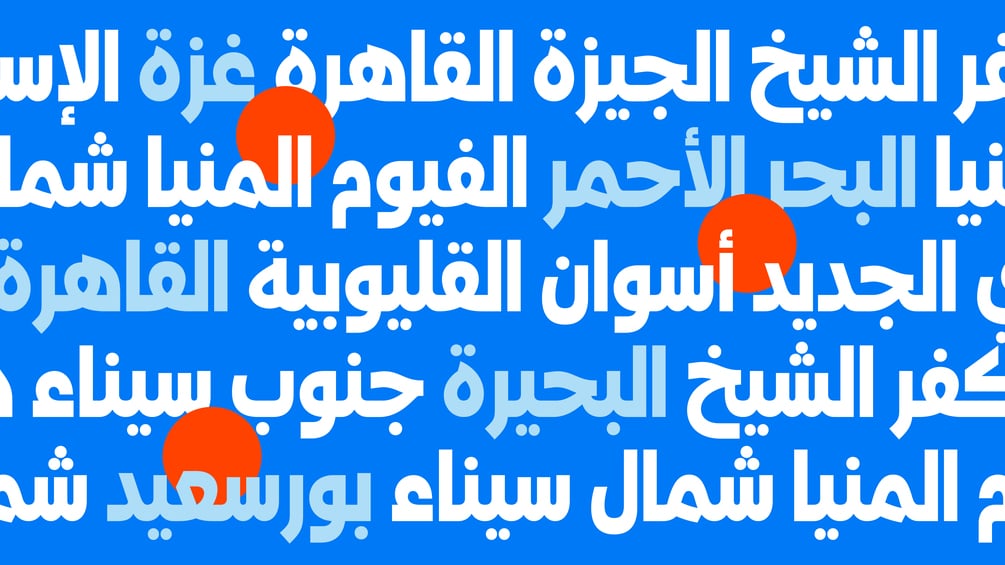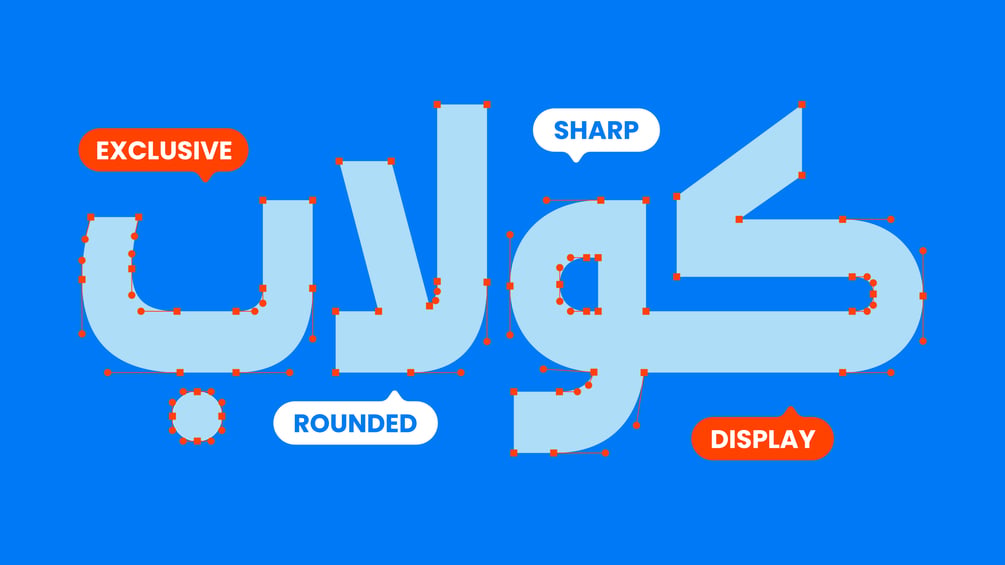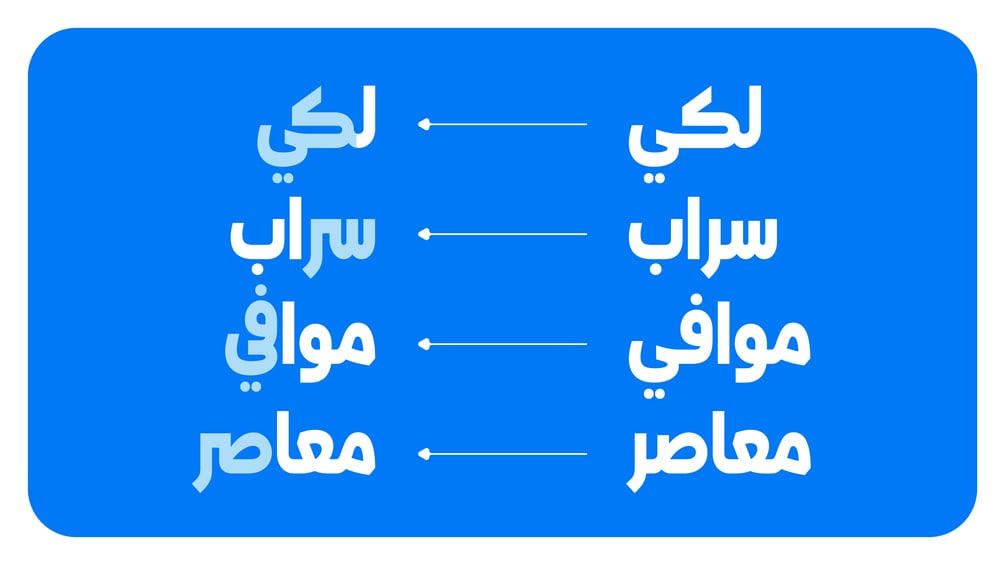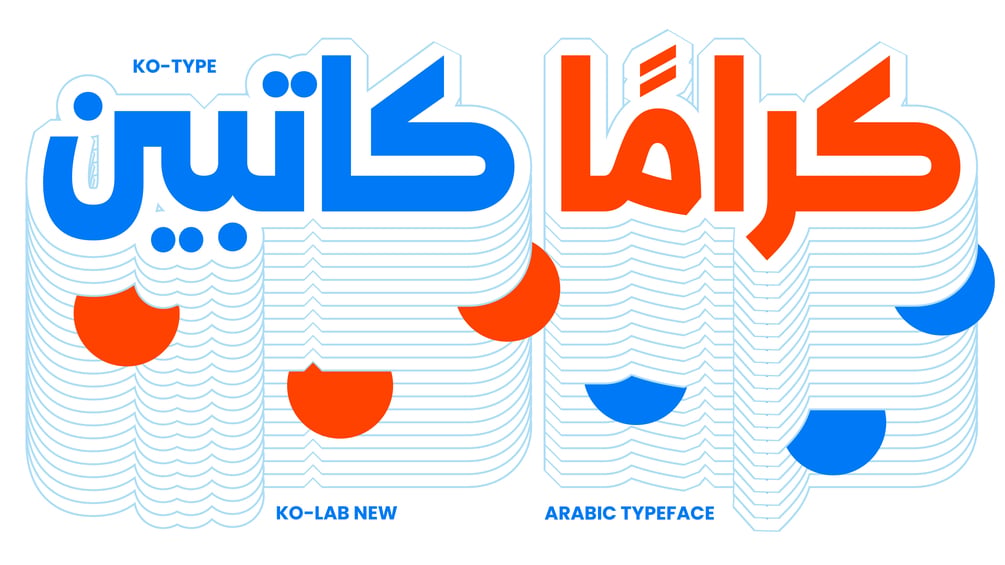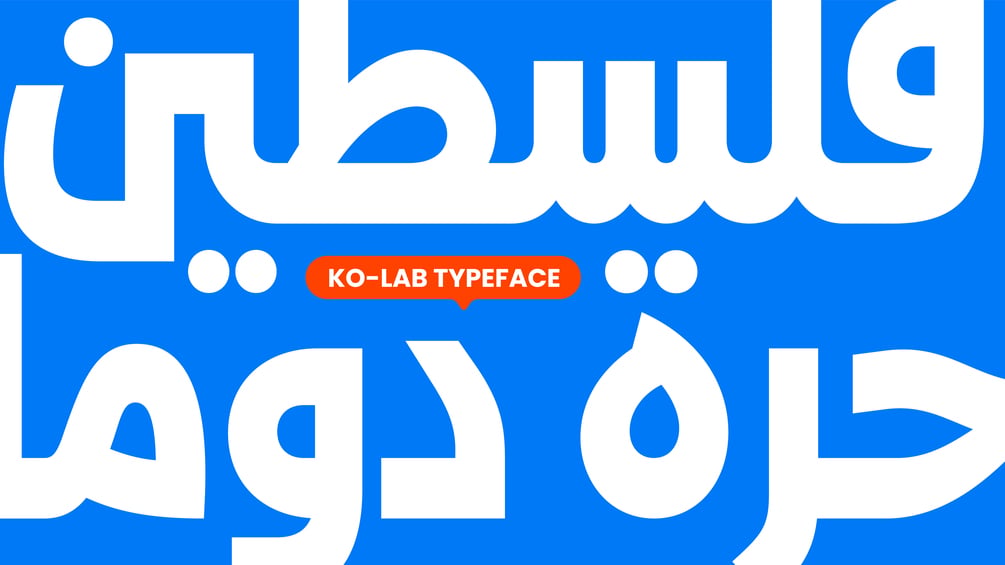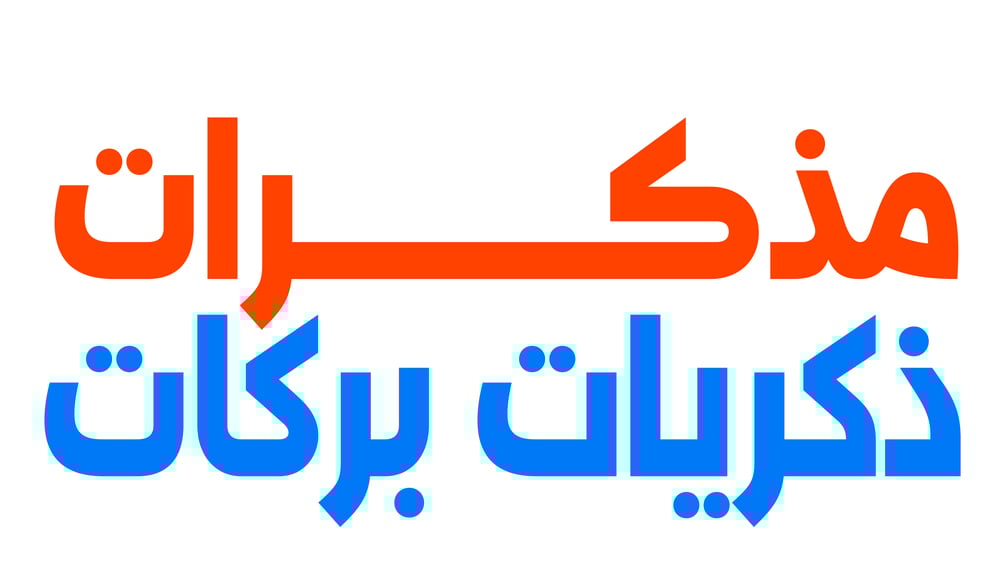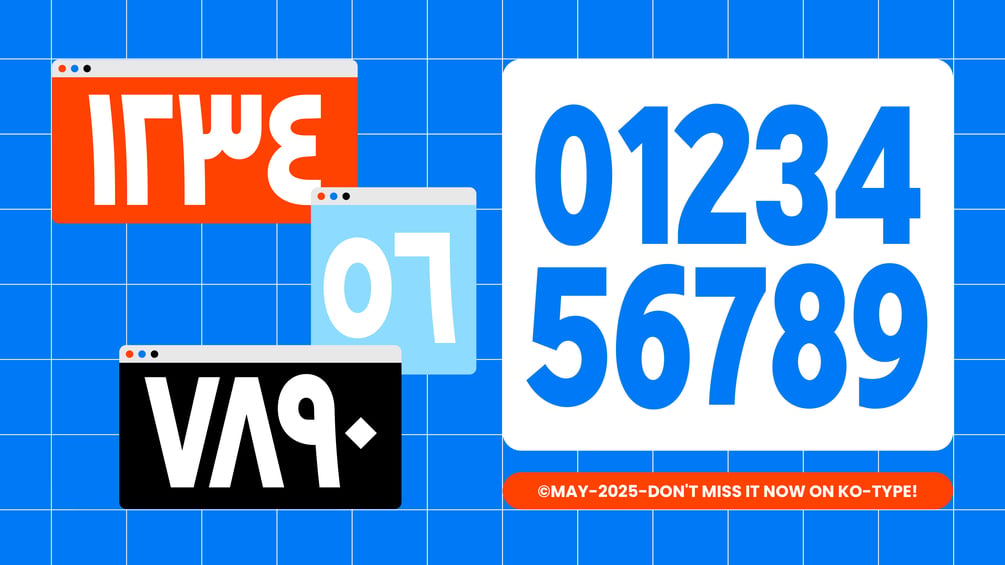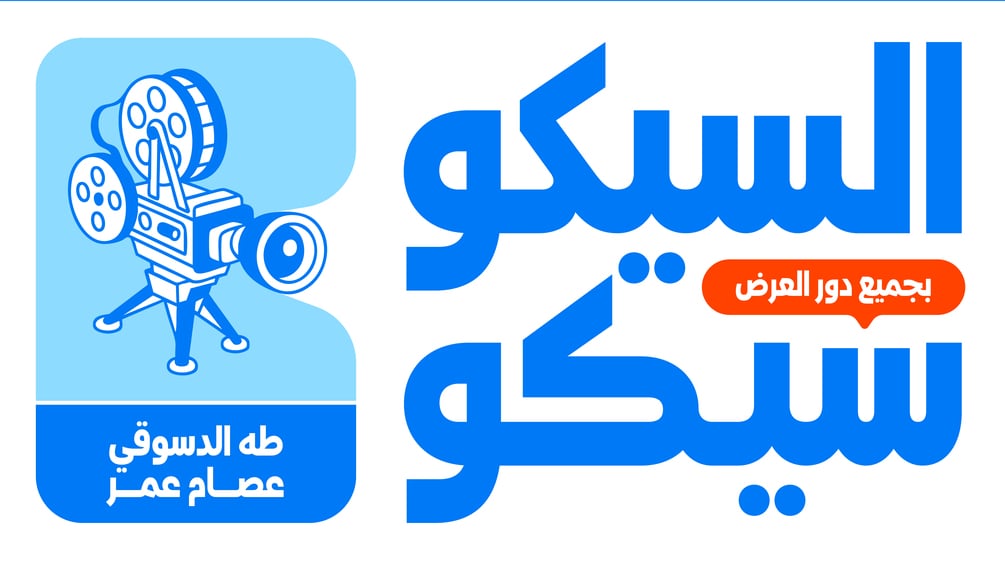
KO Lab Typeface
KO Lab typeface
KO Lab typeface is an Arabic typeface that is designed with a clear purpose in mind — to stand out. It comes in a condensed style, making it perfect for headlines and strong visual statements. comes in two styles for the ends — rounded and sharp — giving users more control over the tone of their work.
Sans Arabic typeface
Stylistic Alternates, Standard Ligatures, Required Ligatures.